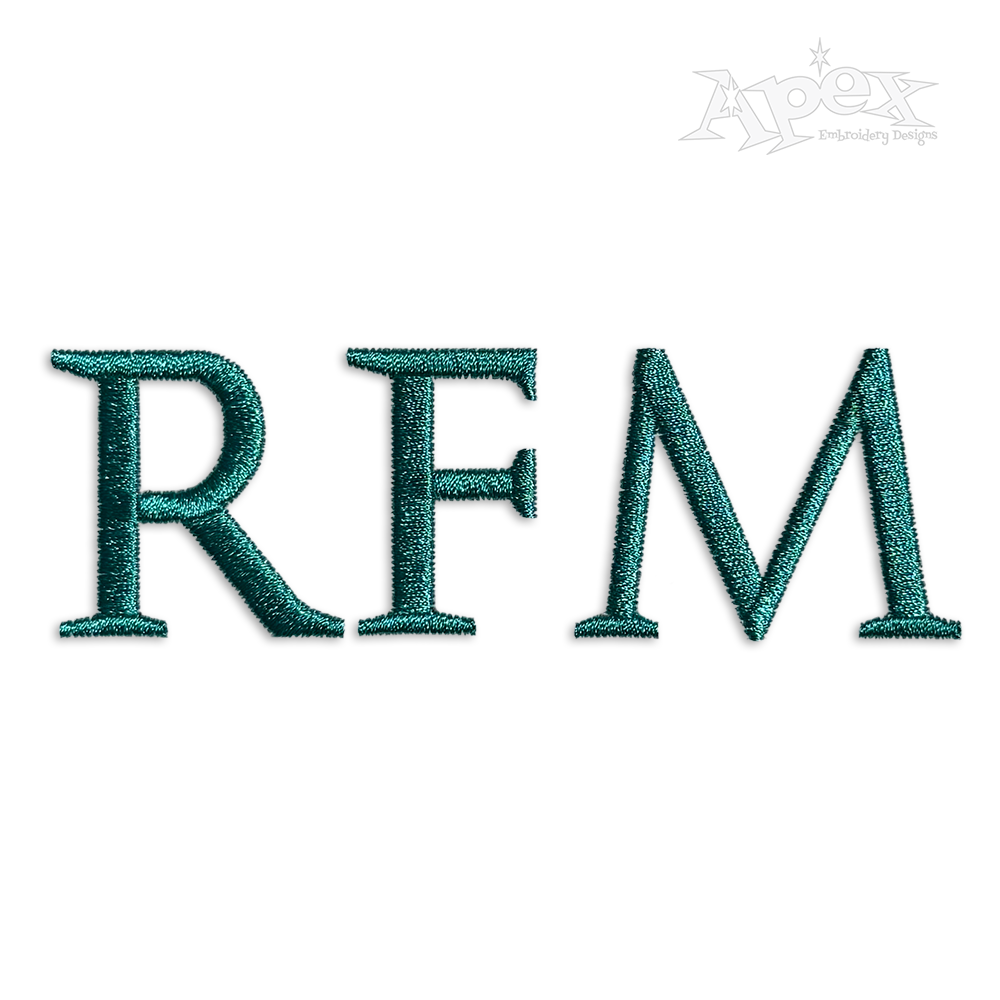
Tommy Embroidery Font
Rooted in the timeless elegance of classic collegiate heritage and sun-washed coastal style, the Tommy Embroidery Font brings a structured, effortlessly handsome voice to your needlework. Digitized with an artisan’s eye for rhythm and proportion, this alphabet captures the quintessential spirit of tailored prep, crisp seersucker, and bespoke heirloom wear. Every character stands proud and poised, balancing architectural clarity with the fluid grace of master-crafted satin stitch columns that glide flawlessly across your machine’s needle plate.
The Tommy Embroidery Font has been precision-digitized in four versatile graduated heights, ensuring optimal stitch density and thread tension at every scale:
- 0.28" (approx. 7mm): A specialized micro-scale monogram letterform, impeccably drafted for subtle cuff initials, shirt collar tips, layette tags, and discreet watch-pocket embroidery.
- 1.0" (approx. 25mm): The gold-standard proportion for tailored left-chest embroidery, baby sunsuits, pocket crests, and heirloom baby rompers.
- 1.5" (approx. 38mm): An adaptable mid-size letter, perfect for traditional three-letter monograms, children's backpacks, and bespoke table accents.
- 2.0" (approx. 50mm): A commanding statement size designed for canvas boat totes, beach towels, decorative nursery pillows, and collegiate blanket borders.
Project Ideas for Tommy Embroidery Font
Thanks to its clean, tailored lines and all-American aesthetic, the Tommy Embroidery Font shines across a wide spectrum of heirloom and lifestyle sewing projects:
- Heirloom Children's Wear: Personalize boys' Jon Jons, vintage-inspired bubble rompers, linen button-downs, and piqué day-gowns with classic southern charm.
- Bespoke Resort & Nautical Gear: Monogram heavy canvas duffels, cotton piqué polos, zip-front fleece vests, and striped deck towels for a refined country-club feel.
- Luxury Table Linens: Stitch crisp, centered single initials on hemstitched linen cocktail napkins, dinner runners, and personalized bread basket liners.
- Tailored Gifting: Create treasured, personalized gifts for groomsmen, ring bearers, graduates, and newborns by adding initials to oxford cloth dop kits, cosmetic cases, and heirloom blankets.
The Tommy Embroidery Font adapts beautifully to multiple layout traditions, whether you are planning a formal single initial or a classic monogram arrangement:
- Left-Chest Monograms: Position the 1.0" or 1.5" lettering approximately 7 to 9 inches down from the left shoulder seam, centered between the placket and side seam for shirts and pullovers.
- Collar Points & Cuffs: The ultra-fine 0.28" micro-size nestles gracefully along the edge of a French cuff, inside wrist placket, or centered on the back neckband of tailored garments.
- Tableware Corner Placements: For hemstitched cocktail napkins and dinner linens, set your monogram diagonally at a 45-degree angle, positioned 1.5 to 2 inches from the corner hem for a balanced, luxurious drape.
- Structured Canvas Totes: Center the bold 2.0" size between the webbing straps on tote pockets or across the main front panel for high-impact nautical elegance.
Tommy Embroidery Font Craft & Letterform Details
True embroidery craftsmanship lives in the hidden mechanics of the digitizing path. With the Tommy Embroidery Font, every stroke has been sculpted to showcase the natural sheen of rayon and polyester embroidery threads. Rather than relying on rigid, automated generation, each letterform features deliberately varied stitch angles that reflect light dynamically across the surface, giving the stitched monogram an unmistakable sense of dimension.
Specialized underlay foundations anchor your base textile securely before the top satin column begins, preventing shifting on fine knits, piqué textures, and structured linens alike. Carefully dialed pull-compensation safeguards straight vertical stems and perfectly rounded curves, while feathered corner junctions prevent thread buildup and lumpiness. The result is a clean, sharp finish that honors traditional bespoke tailoring while running like silk on contemporary embroidery equipment.